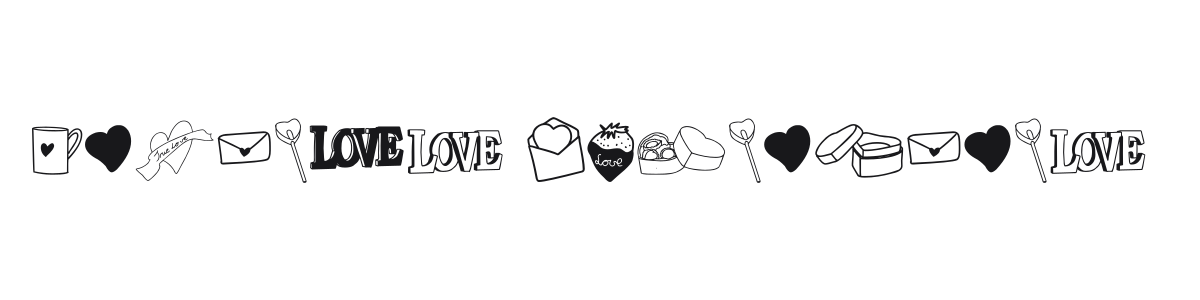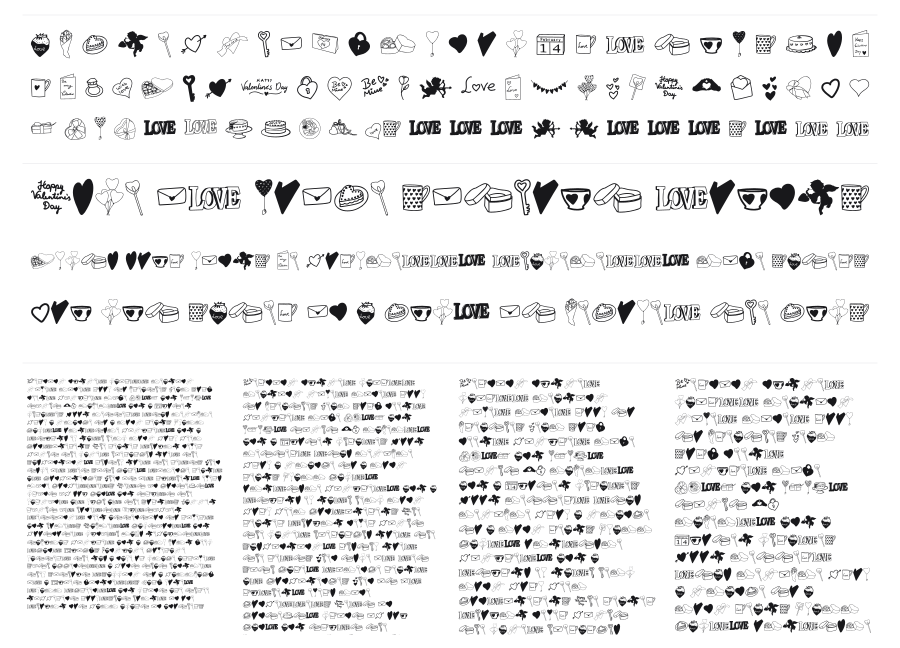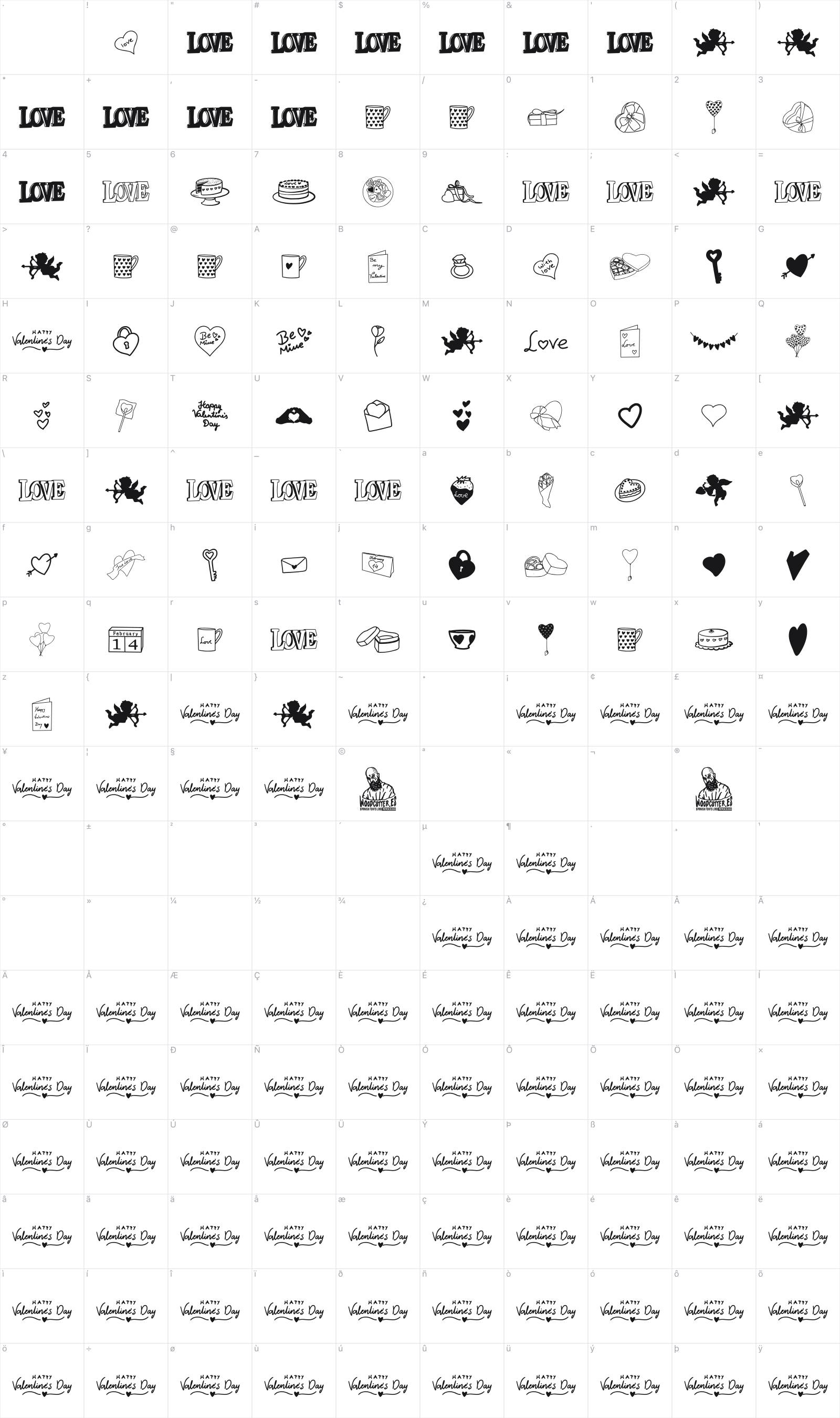
Angie's Valentines
Angie's Valentines is a hand-drawn dingbat font packed with Valentine's Day icons: hearts, love keys, strawberries, coffee mugs, envelopes, and more. Created by Woodcutter in collaboration with Angie Ventura, each symbol carries a loose, sketchy warmth that feels personal rather than clip-art generic. Great for seasonal cards, social graphics, and romantic packaging accents.